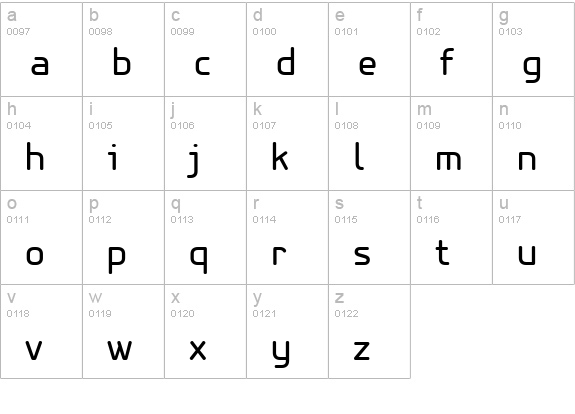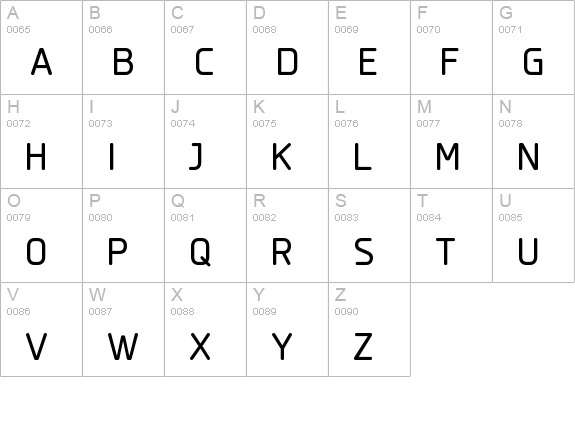
PFIsotextPro-Regular is the standard, neutral variant in the PFIsotextPro typeface family \xE2\x80\x94 well suited to general body text, paragraphs, and standard typographic work.
PFIsotextPro-Regular is a versatile and sleek sans-serif font that exudes modernity and sophistication. With its clean lines and balanced proportions, this font is perfect for a wide range of design projects, from branding to editorial design. Its legibility and readability make it suitable for both print and digital applications. The best part is that PFIsotextPro-Regular is available for free download at FontsMarket.com. This means you can easily access this high-quality font for your creative projects without any cost. Whether you are a designer, student, or hobbyist, this font offers a valuable resource to enhance your work with a touch of professionalism and style. Don't miss the opportunity to add PFIsotextPro-Regular to your font collection today and elevate your designs with its contemporary appeal.